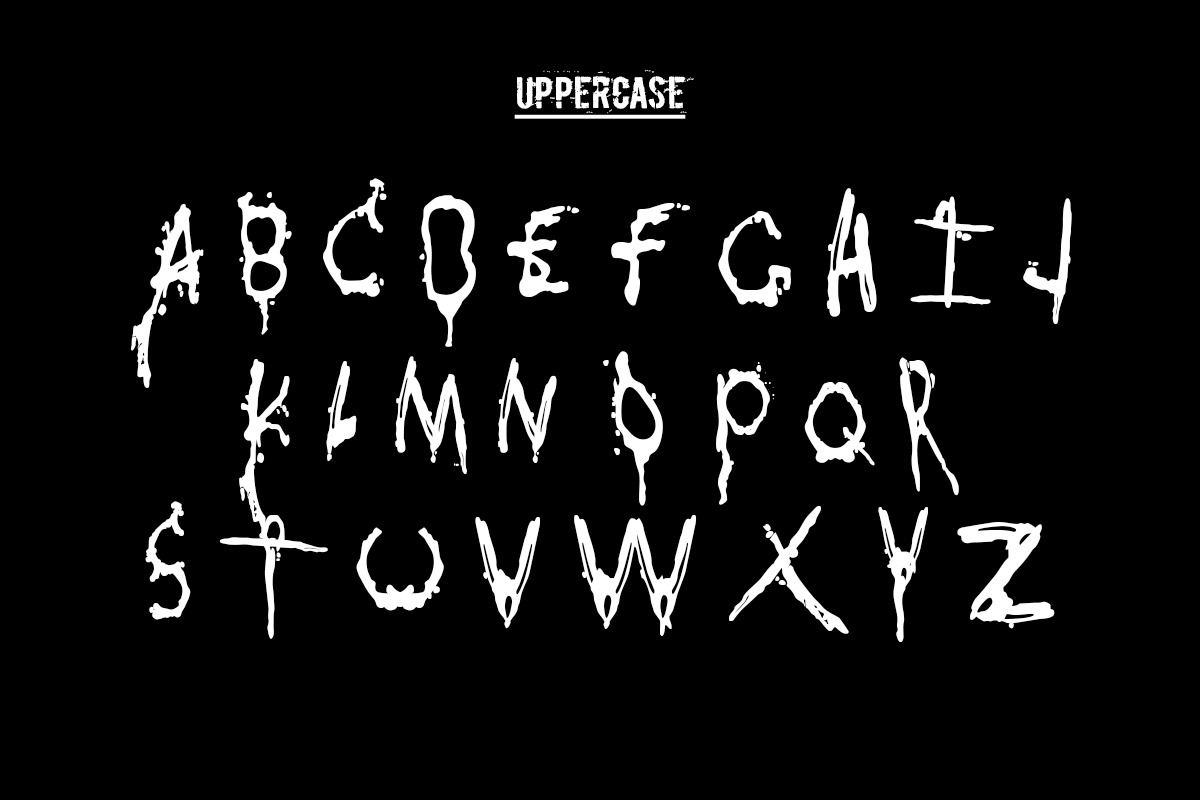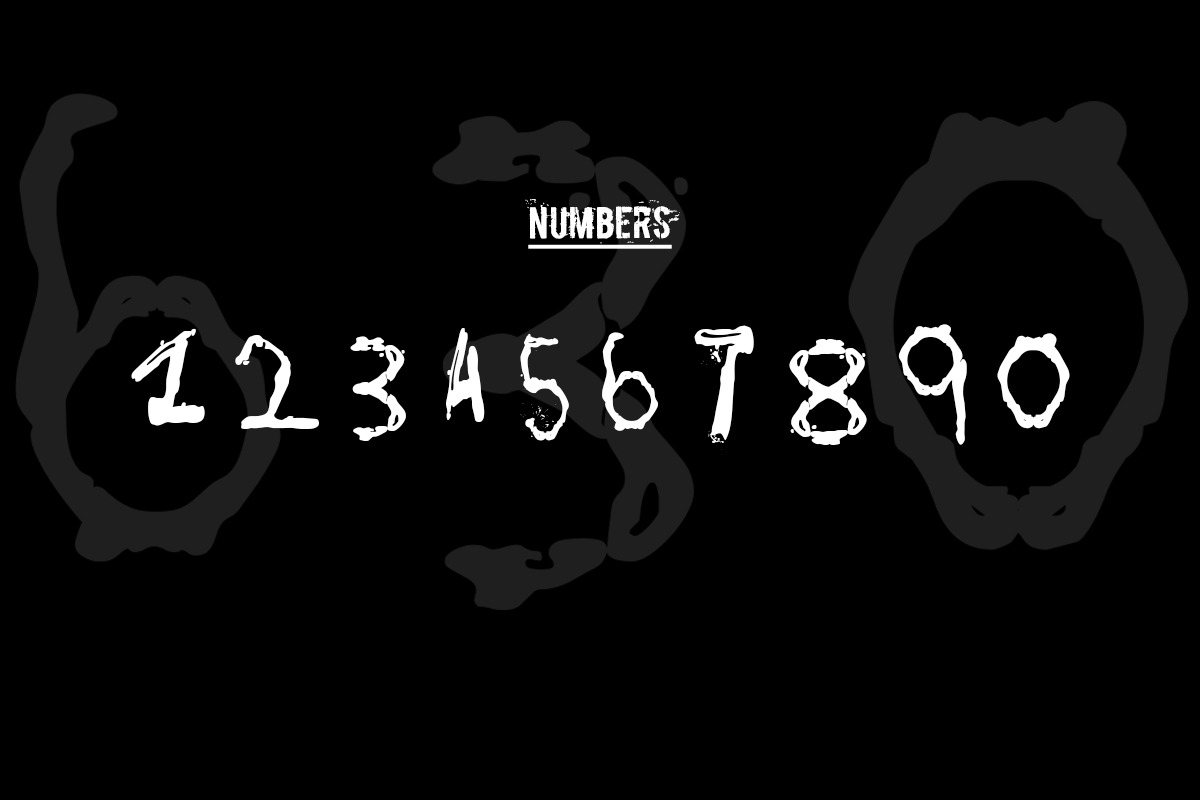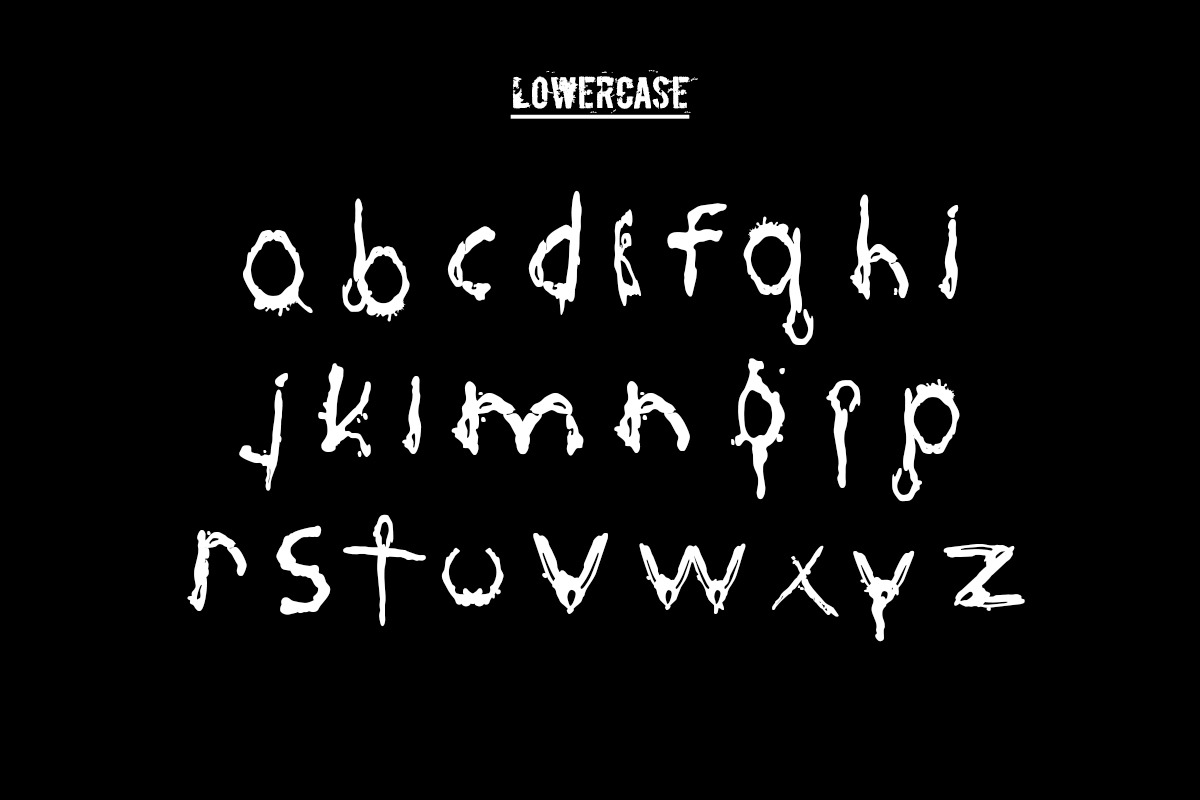
Bloody Mess - hand drawn font set
The Bloody Mess font set includes a bloody detailed font style. This font was designed to emulate a metal band logo or movie title. This set includes upper and lower case letters as well as full numbers. Need more letters? Please contact me.
- The Bloody Mess font set includes a bloody detailed font style.
- This set includes upper and lower case letters as well as full numbers.
- The Bloody Mess font set includes a bloody detailed font style.
- This set includes upper and lower case letters as well as full numbers.